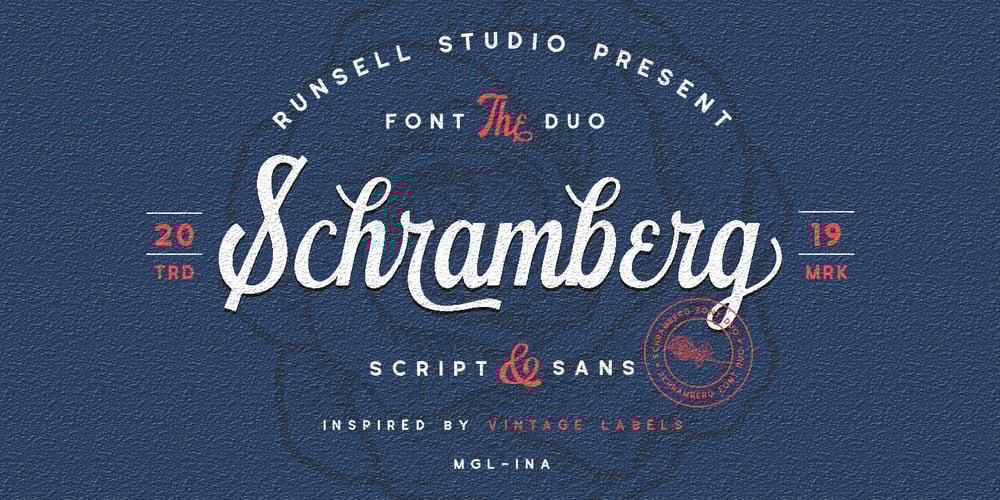
Schramberg Font Family was designed by Fitriyawan and published by Runsell Type. Schramberg contains 2 styles and family package options. Schramberg is a new typeface inspired by vintage labels and combining with modern design. This font come with sans serif. Schramberg features with stylistic alternate, contextual alternate and stylistic set. This font come with script and match your vintage design, t-shirt, logo, labels, badges, posters and etc. To access the alternate glyphs, you need a program that supports OpenType features such as Adobe Illustrator CS, Adobe Photoshop CC, Adobe Indesign and Corel Draw. If you have any question please do not hesitate to contact me. Happy creating! Runsell Studio – Magelang – Indonesia